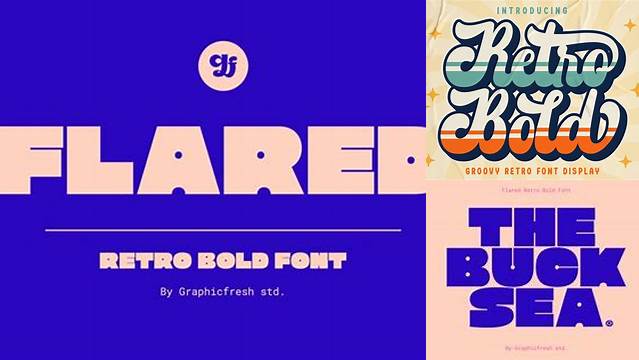
Hey guys! Are you looking for a font that screams retro vibes and demands attention? Well, look no further! This article is all about Flared Bold Retro Font, a fantastic typeface perfect for your design projects. The best part? You can get it for FREE! Let's dive into the world of this awesome font, exploring its features, how to download it, and how to use it to create some seriously cool designs. So, let's get started!
H2: Unveiling the Awesome Flared Bold Retro Font
Flared Bold Retro Font isn't just another typeface; it's a statement. This font is a bold and eye-catching design that instantly transports you back to the groovy era of the 70s and 80s. Its distinctive flared serifs and thick, confident strokes make it perfect for grabbing attention. Whether you're working on a poster, a logo, a website header, or even social media graphics, this font will add a touch of retro charm to your work. The font's design is inspired by the typography that was prevalent in the disco era. The developers successfully captured the essence of that time, the spirit of bold creativity. The way each letter gracefully flares outwards gives a unique personality, sets it apart from other fonts, and gives a visually interesting experience to the readers. With the right touch, you can create a nostalgic look that will attract the attention of the audience. The bold nature of the font gives a great readability. It has the ability to remain clear, even when displayed in a bigger size. You can create a design that speaks volume. Because of its retro aesthetics, it's suitable for a broad variety of projects that are related to music, fashion, and other creative avenues. This font can really elevate the overall visual appeal of your design and make it look professional and appealing. So, if you want to add a dash of nostalgia, excitement, and professionalism to your design, Flared Bold Retro Font is the ideal choice. Trust me, you won't regret it!
H3: The Key Features of This Retro Font
Flared Bold Retro Font boasts some fantastic features that make it stand out from the crowd. Firstly, its bold weight ensures high visibility, making your text impossible to ignore. Secondly, the flared serifs are its signature, adding a unique and stylish flair to each letter. These flares give the font its distinctive retro appeal, setting it apart from more conventional typefaces. Thirdly, the font is typically available in various formats, such as .TTF and .OTF, ensuring compatibility with most design software and operating systems. This versatility allows you to seamlessly integrate the font into your workflow, regardless of your preferred design tools. The font is carefully designed for optimal readability, even when used in larger sizes. This means you can create impactful headlines and titles that immediately catch the viewer's eye. Moreover, the character set often includes a comprehensive range of glyphs, including numbers, punctuation marks, and special characters. This ensures that you have all the necessary tools to create a complete and professional design. The font usually supports multiple languages, making it a good choice for global design projects. With its blend of style, readability, and compatibility, Flared Bold Retro Font is a versatile and valuable asset for any designer looking to create a retro-inspired project. Its ability to capture the essence of a bygone era while remaining modern and functional is what makes it such a popular choice. The font's adaptability to various applications makes it a must-have for designers. Whether you're designing a website, a poster, or any other visual material, this font will give your work a memorable retro vibe.